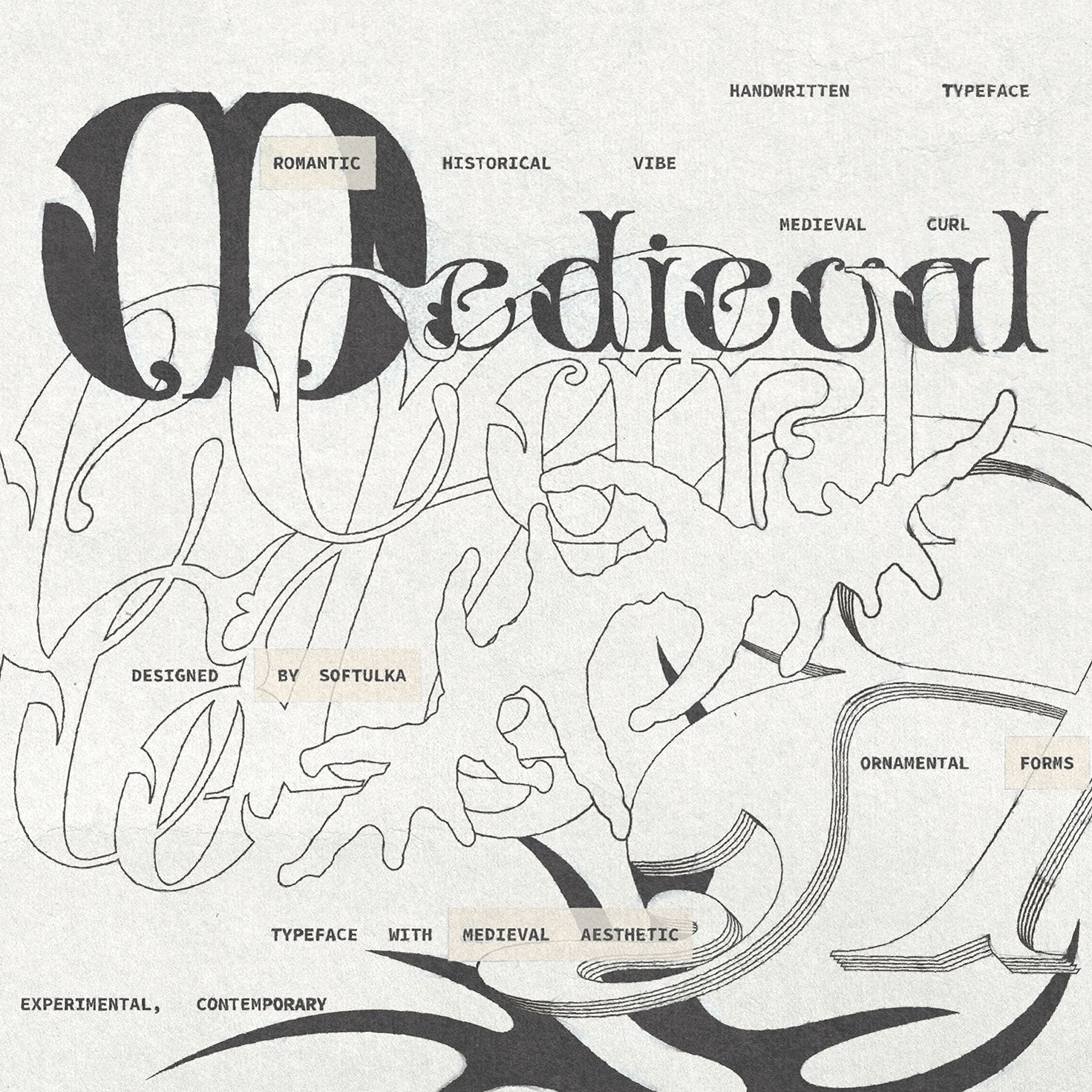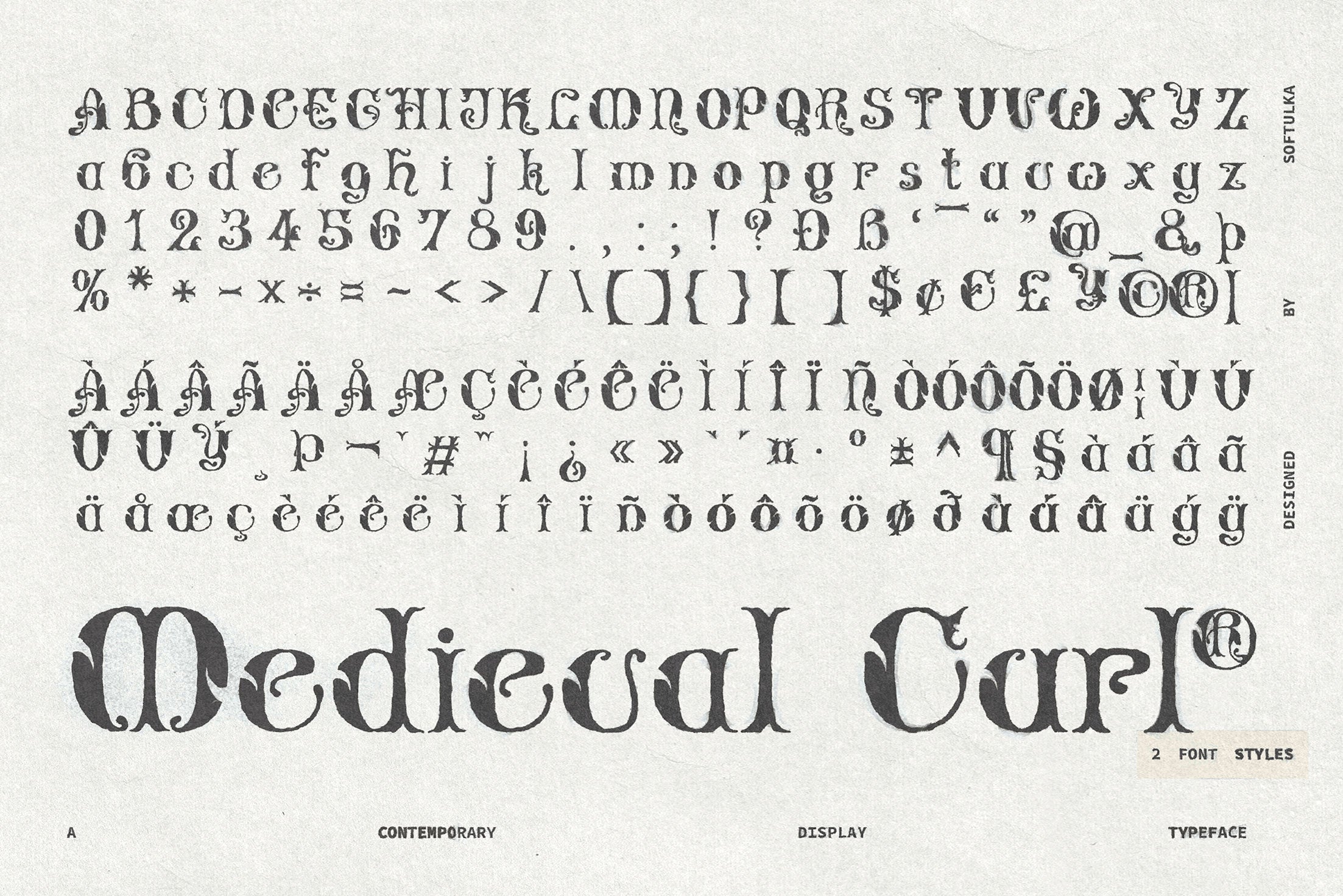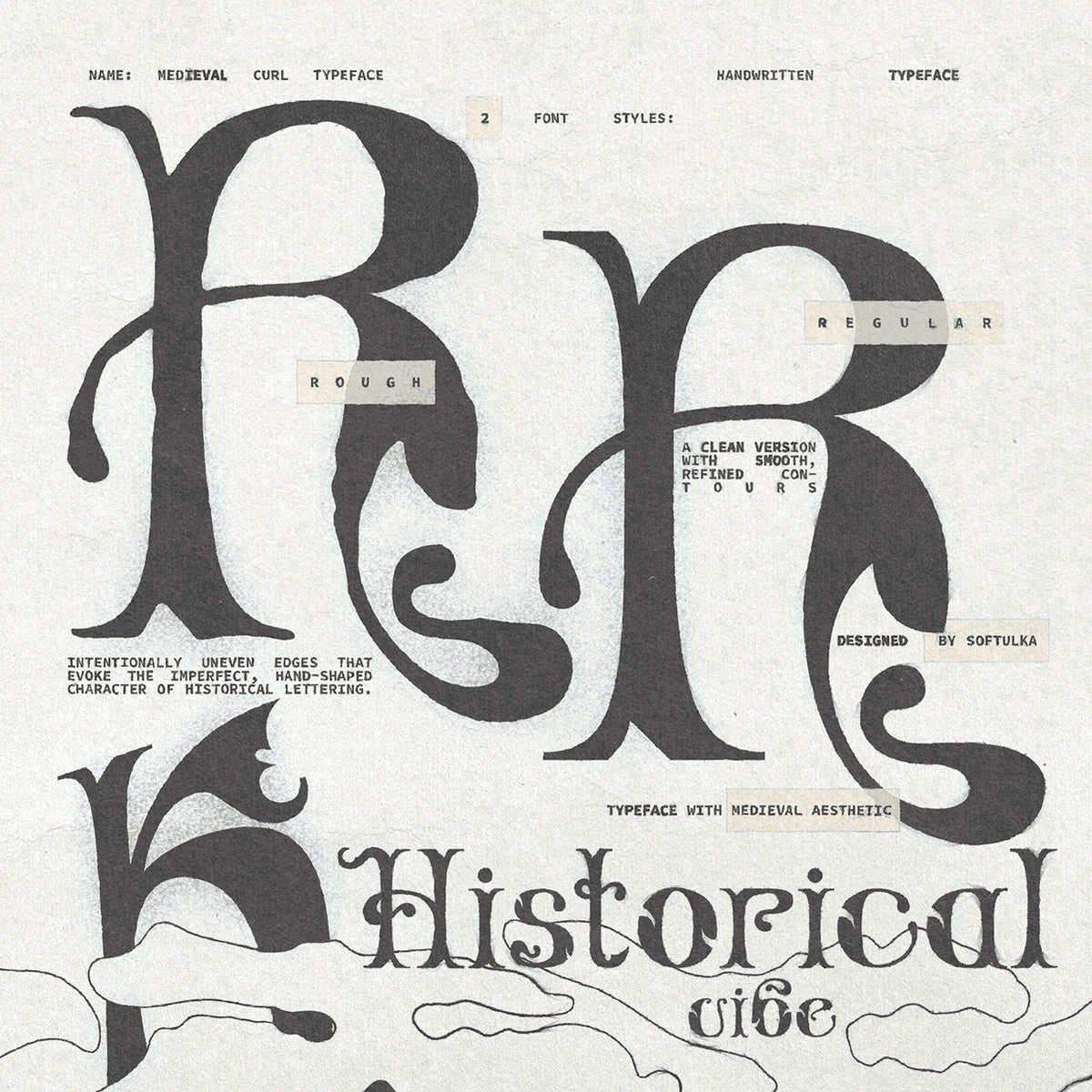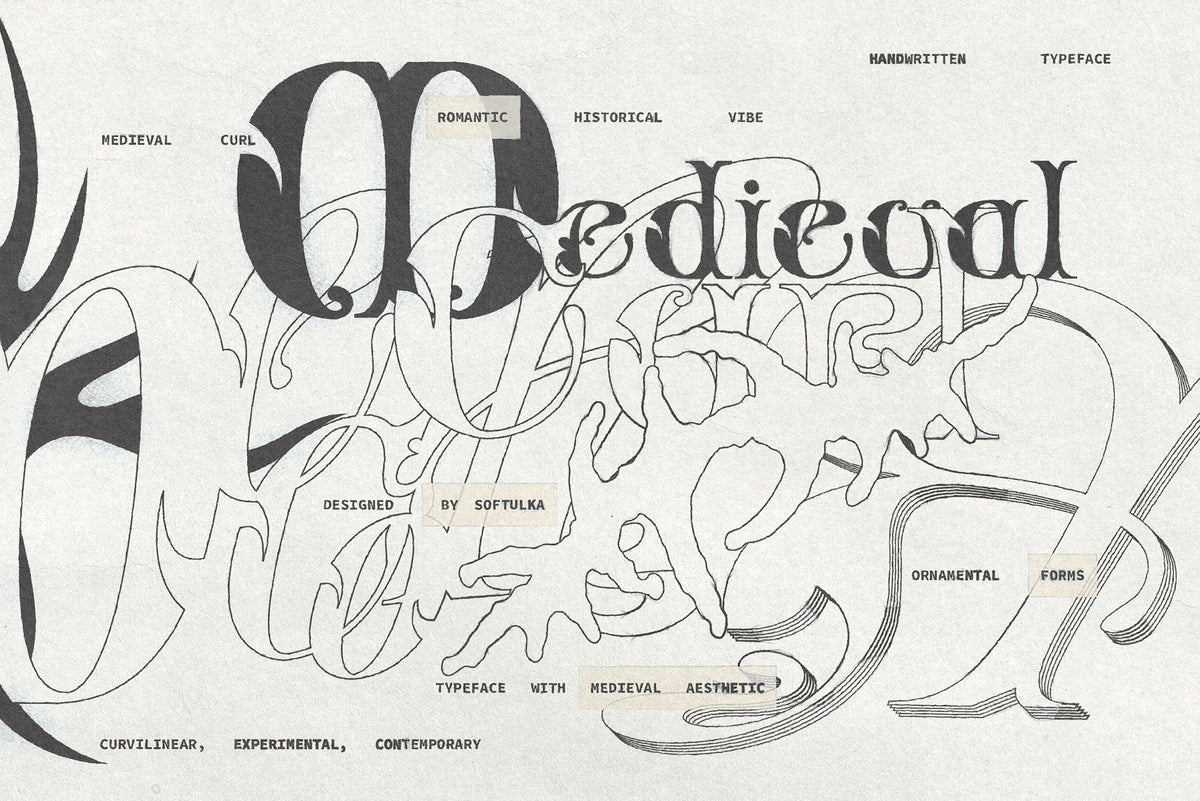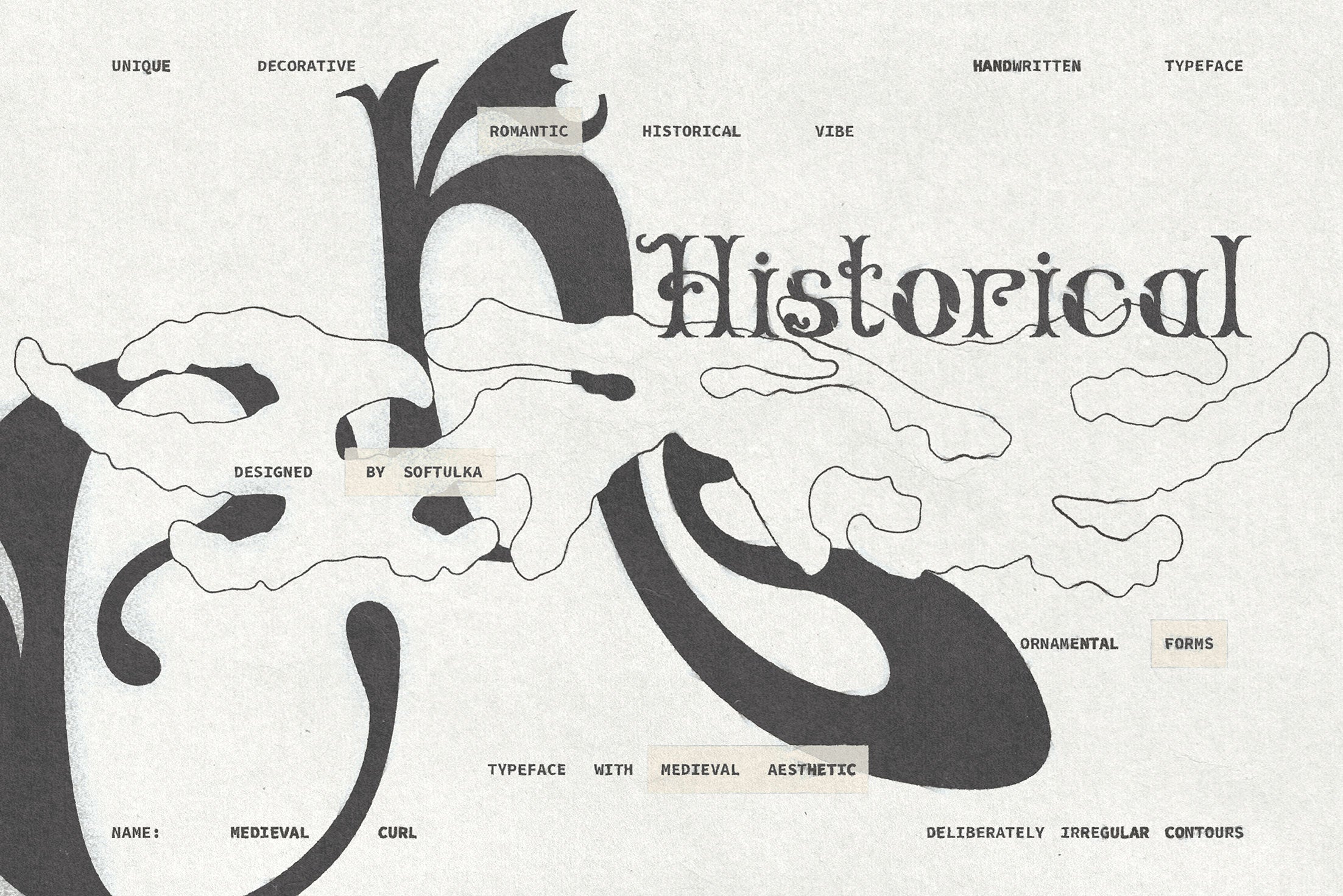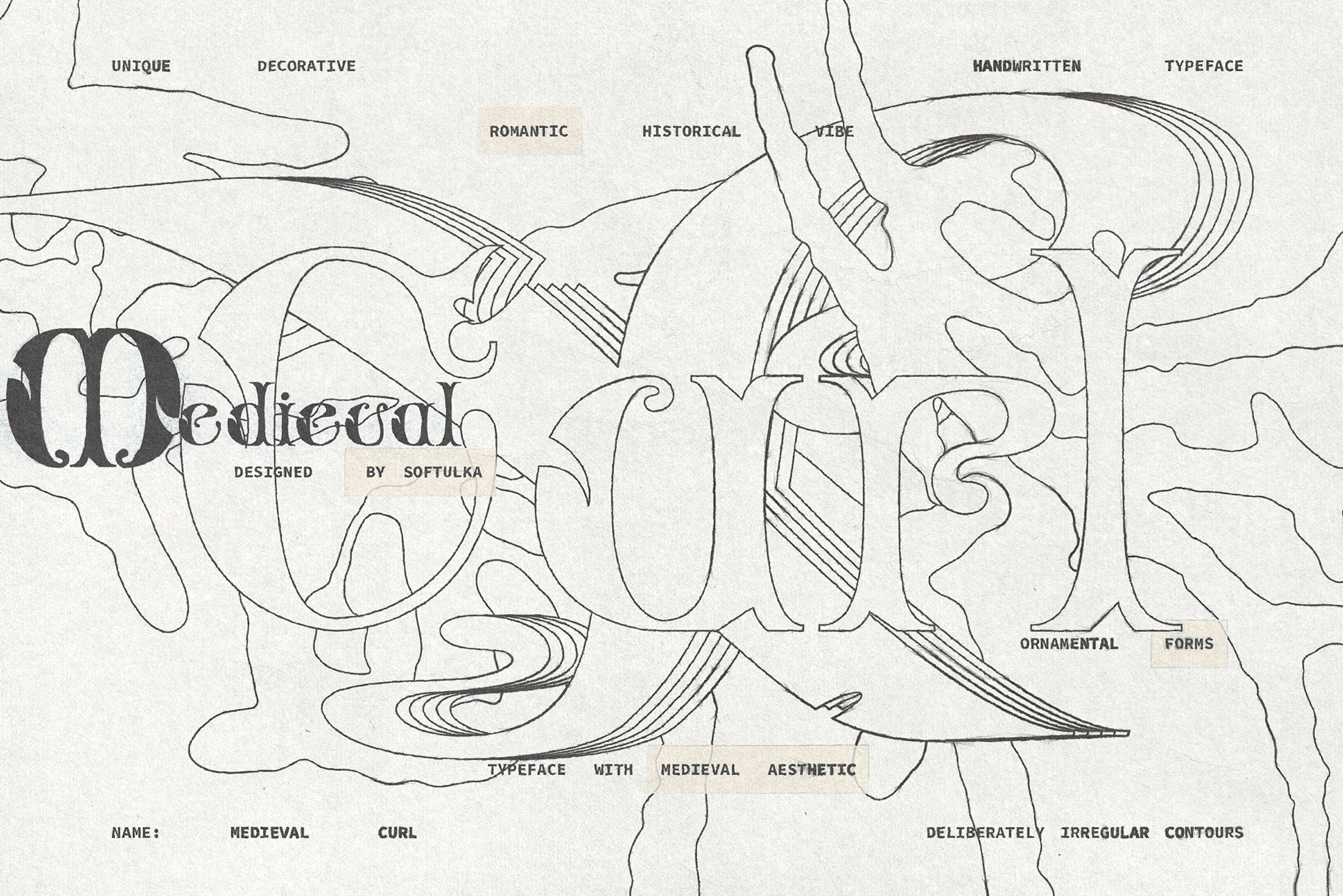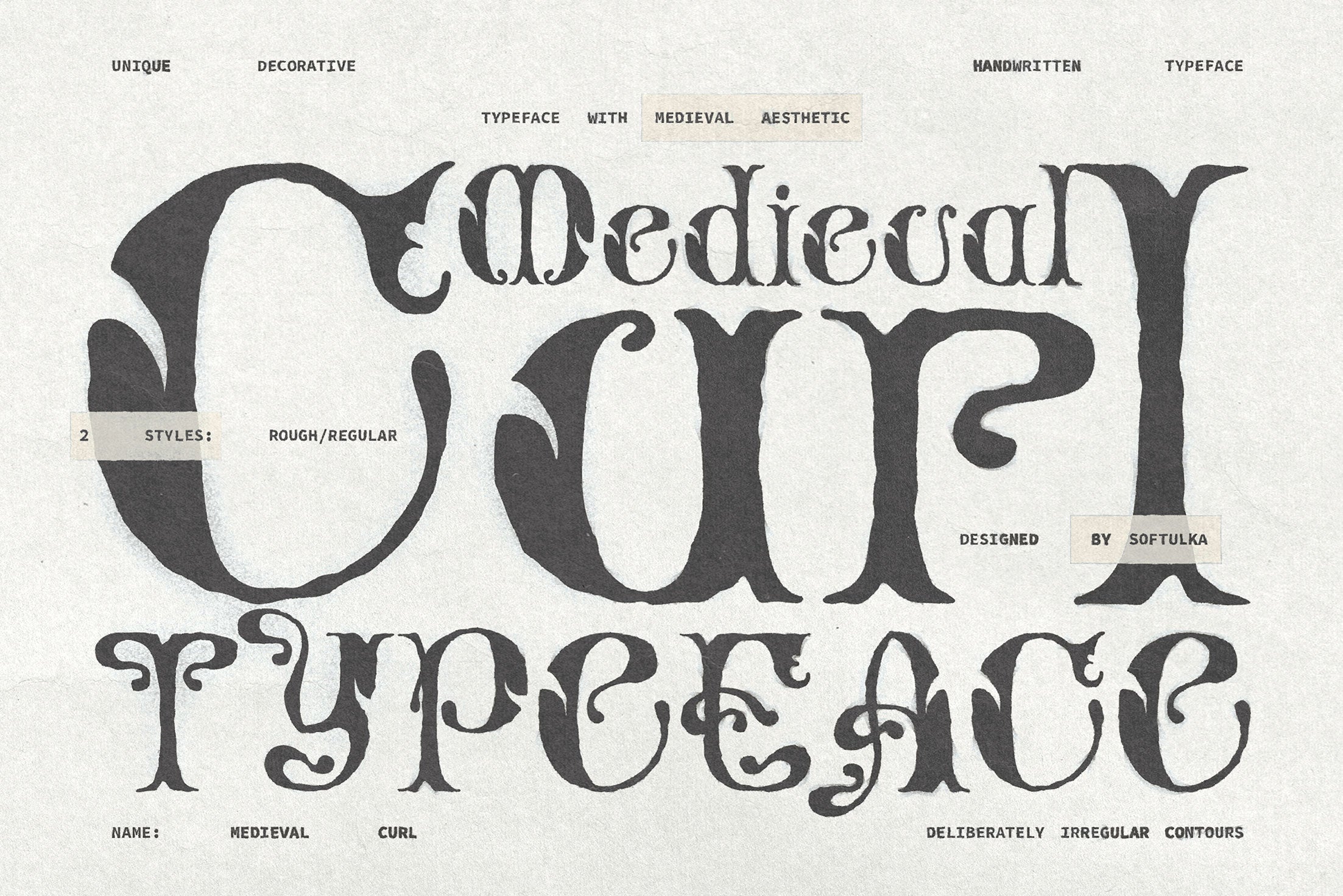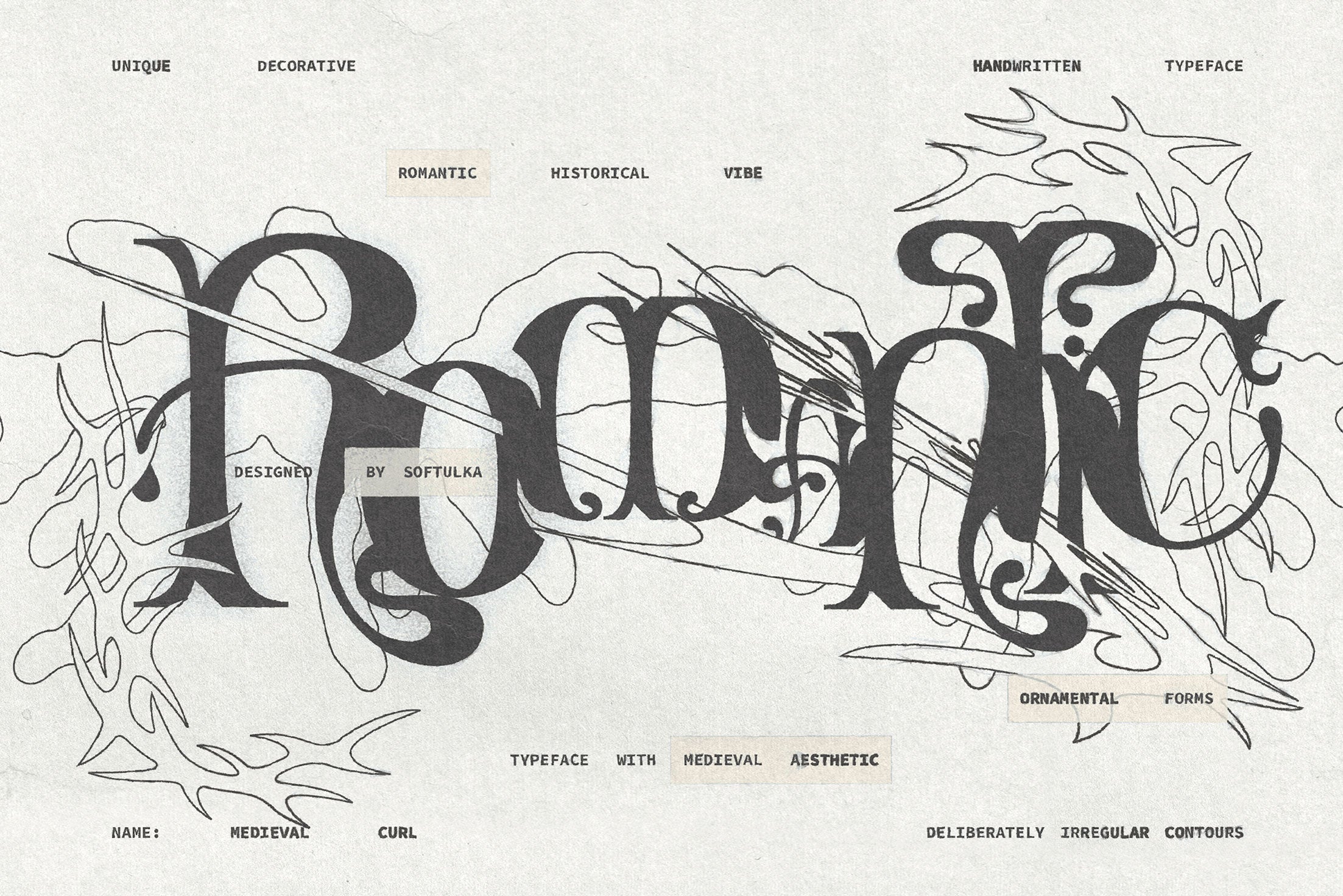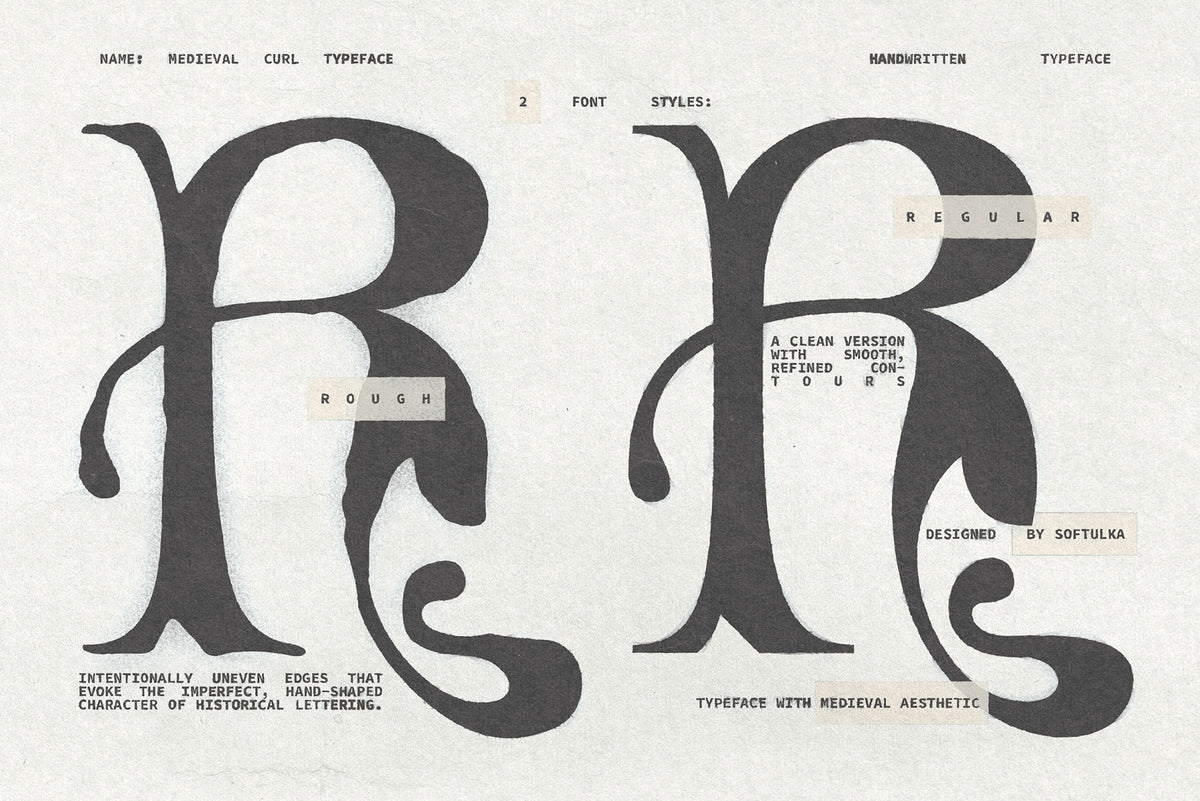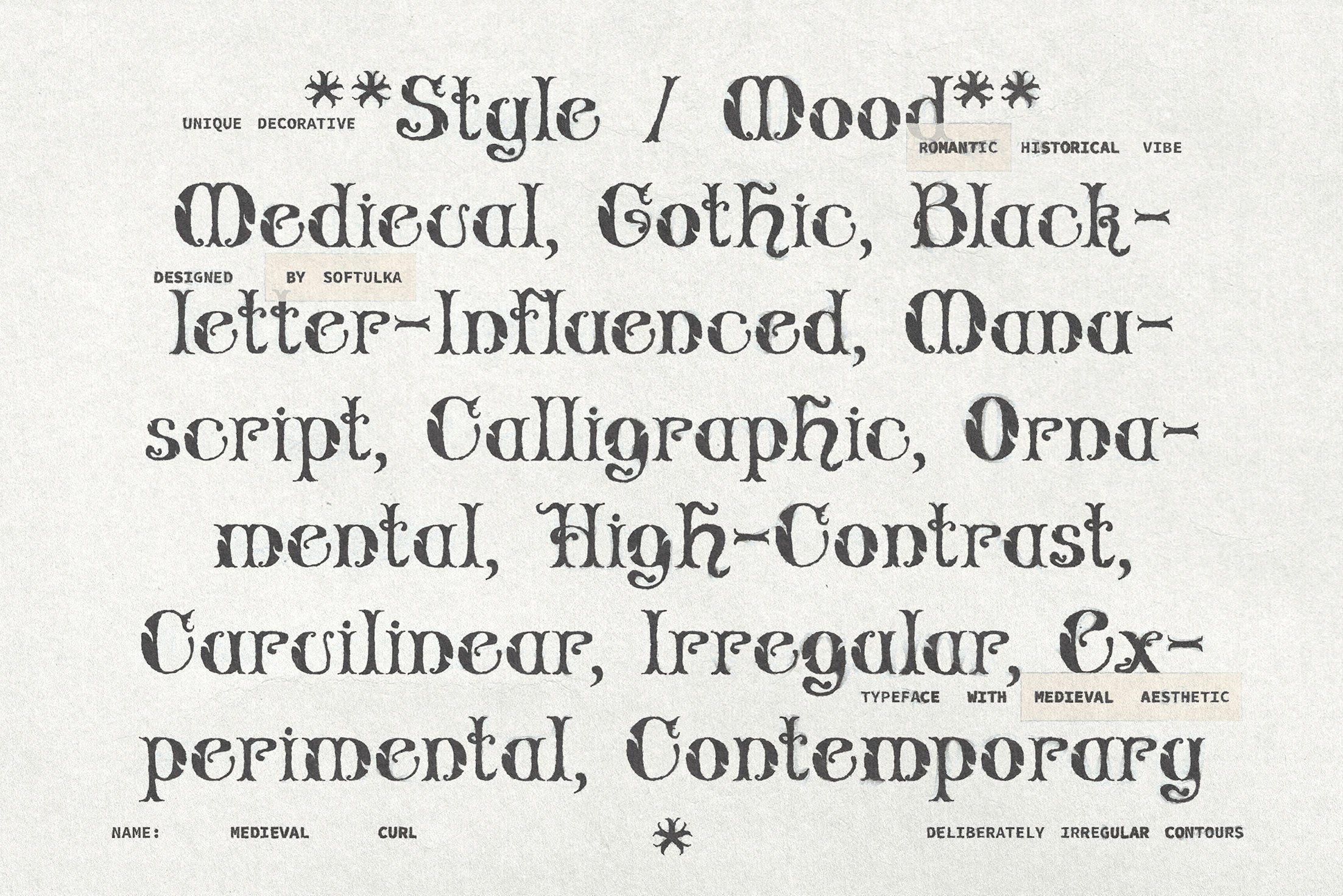
Medieval Curl Typeface
Medieval Curl is a decorative display typeface inspired by the expressive lettering of medieval manuscripts, gothic typography, and ornate calligraphic forms. High-contrast strokes, inward curls, elongated hooks, and looping terminals give each letter a distinctive ornamental character, creating a dramatic rhythm that feels both historical and contemporary.
The typeface comes in two complementary styles. Regular features clean, refined contours for a more polished and sophisticated look, while Rough introduces irregular edges and subtle imperfections that recreate the tactile character of hand-shaped lettering and aged printed forms.
Designed for projects that need a strong visual identity, Medieval Curl works beautifully for logos, titles, album covers, posters, packaging, editorial layouts, book covers, fashion graphics, and cultural branding. Its unusual letterforms make it particularly effective when typography needs to become a central graphic element rather than simply carry information.